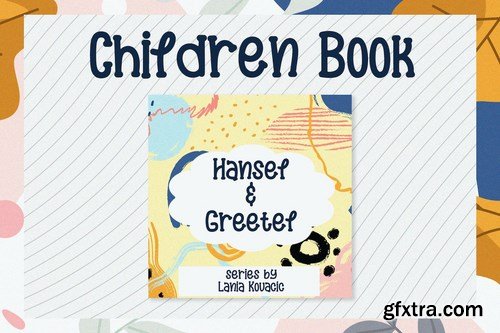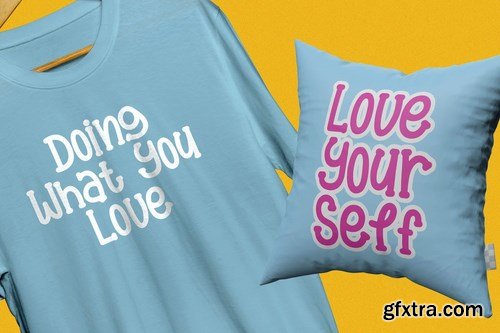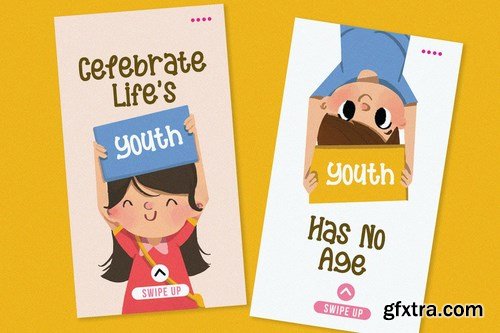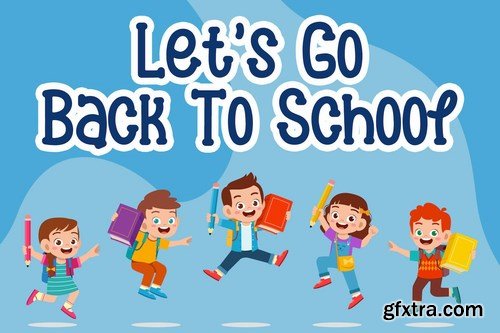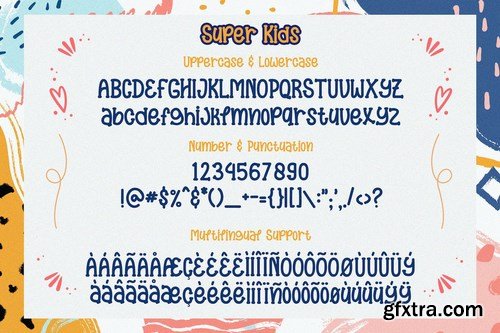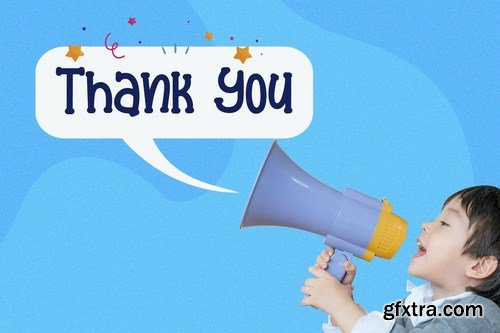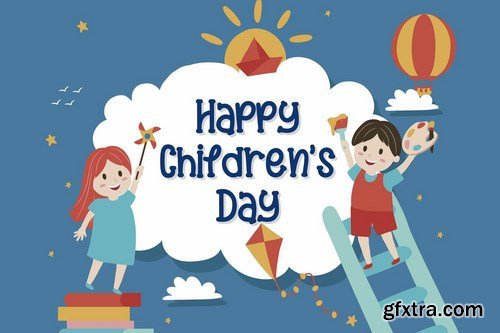
Super Kids is a playful, and quirky display font. Its friendly feel makes this font incredibly versatile, fitting a wide range of contexts. Add it to your creative ideas and notice how it makes them stand out!